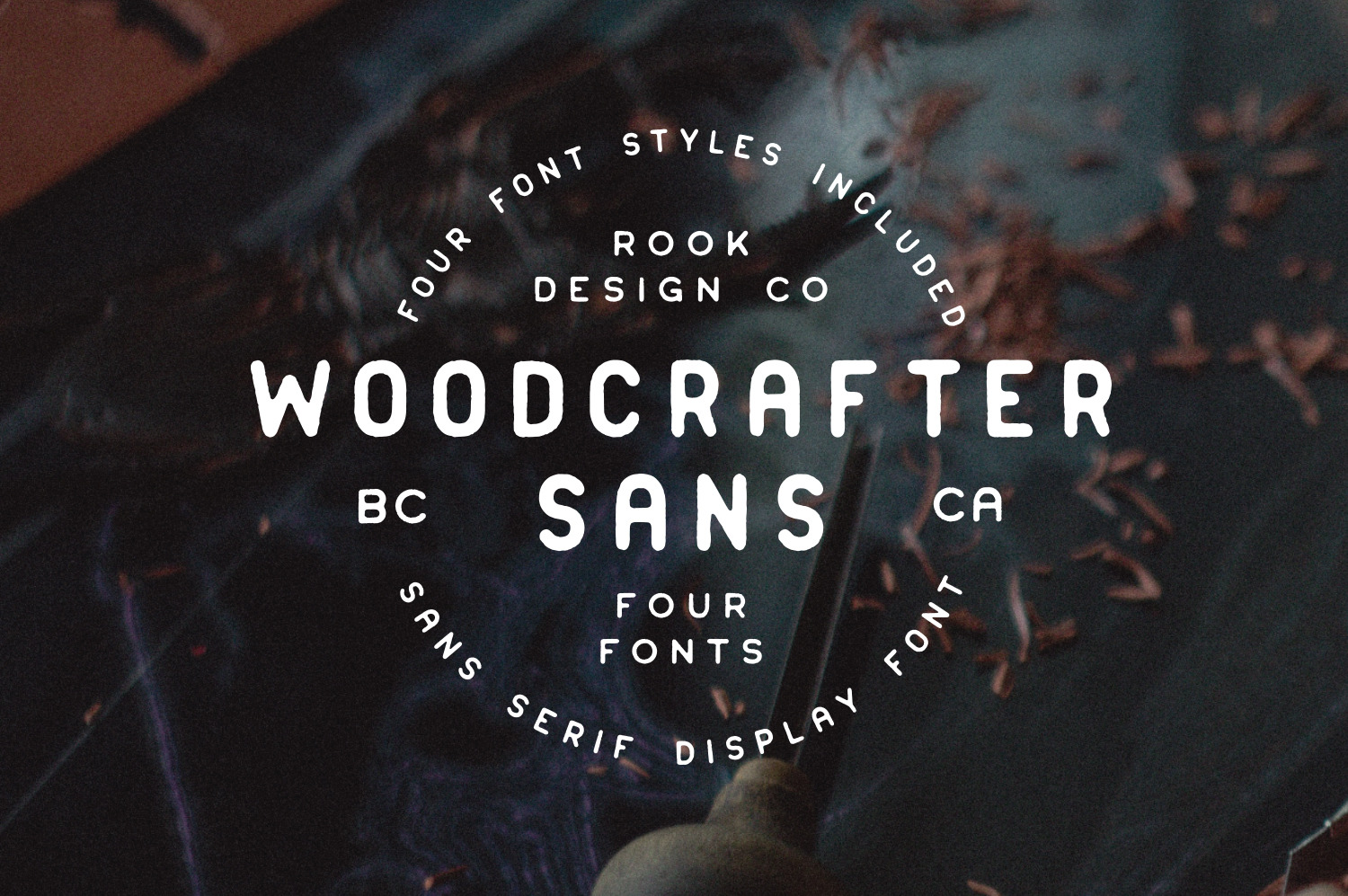
Woodcrafter Sans - 4 Font Family
Woodcrafter Sans is a family of FOUR fonts designed with your logos, branding, and quotes mind. Rounded edges and imperfections were added to the characters to give that old school printing vibe. Woodcrafter Sans is extremely versatile on its own. The font family also works great as a secondary font to go along with existing logos and branding.
Here's everything you get with the Woodcrafter Sans Family:
Four fonts:
Woodcrafter Sans - Regular
Woodcrafter Sans - Condensed
Woodcrafter Sans - Extra Condensed
Woodcrafter Sans - Bold
Language Support - We've added in a great deal of extra characters to support many different languages.